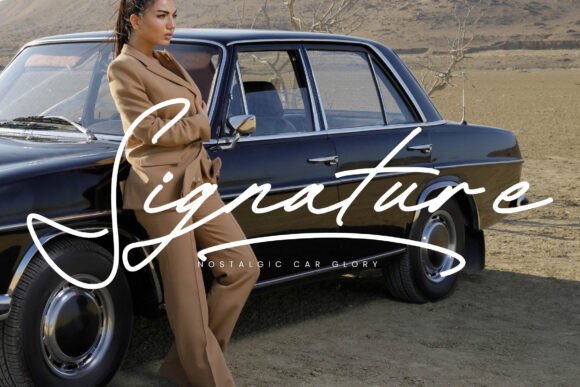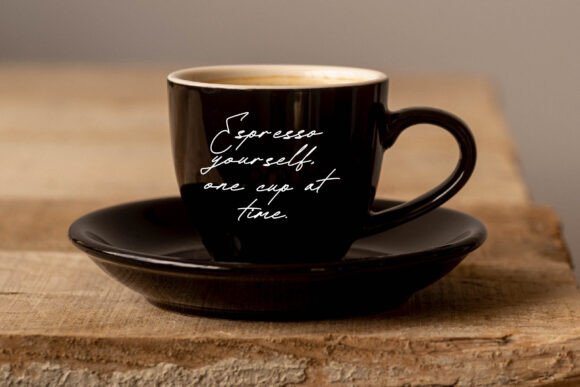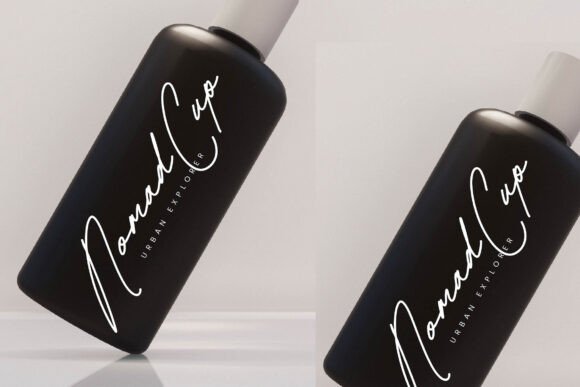
Introduction to Rullian Vicotas Font
Rullian Vicotas – A Monoline Signature Script Font perfect for any project like: logos, branding projects, homewares designs, product packaging, mugs, quotes, posters, shopping bags, t-shirts, covers books, business cards, invitation cards, greeting cards, labels, photography, watermarks, special events and all your other luxury projects that require a premium taste.
Key Features of Rullian Vicotas Font
Why Choose Rullian Vicotas Font?
Rullian Vicotas Font offers exceptional quality and versatility, making it a valuable addition to your design toolkit. Whether you’re creating for personal projects or commercial use, Rullian Vicotas Font delivers professional results.